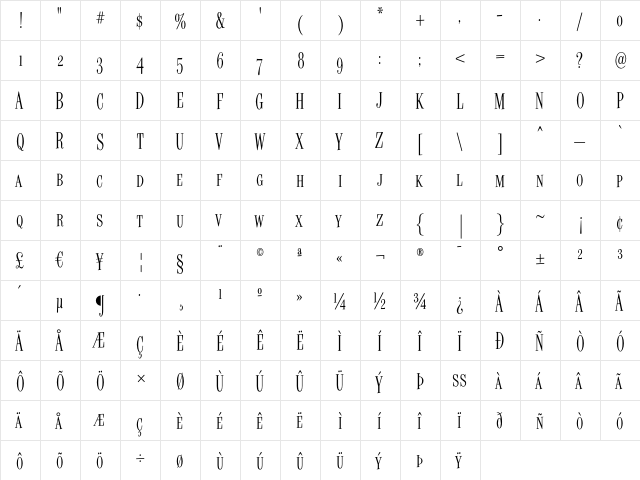
Beatnik SC Regular
Design Context for Beatnik SC Typeface
Beatnik SC is a composed and adaptable typeface that performs quietly and consistently across a wide range of design contexts.